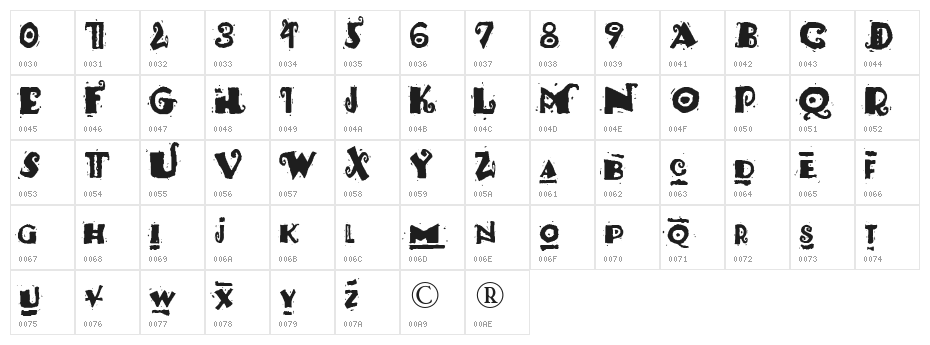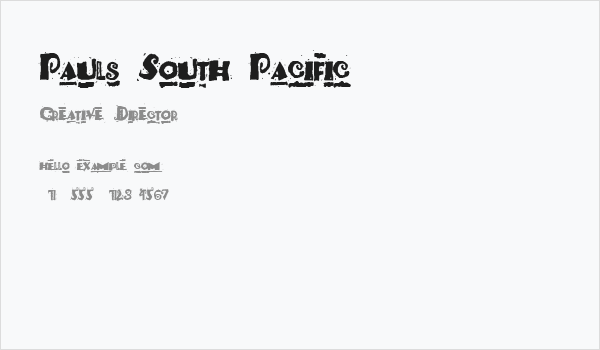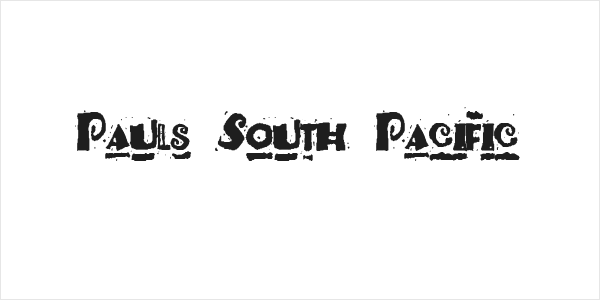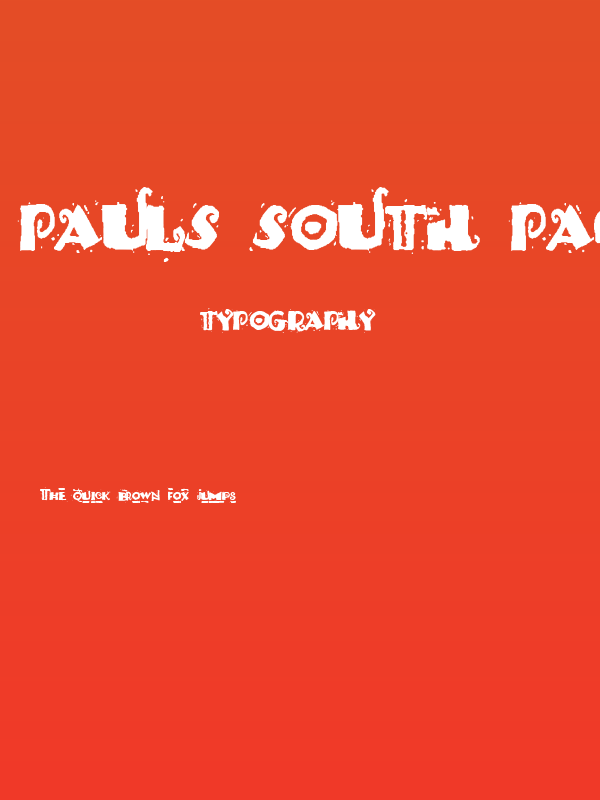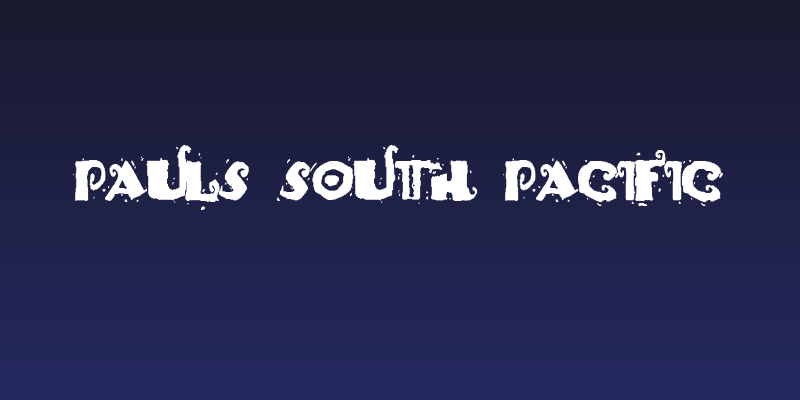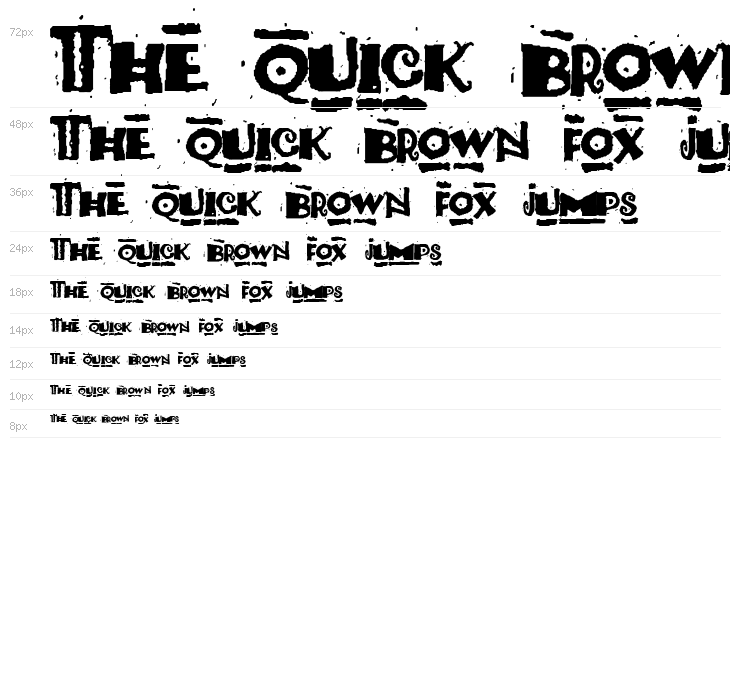
Pauls South Pacific Font
Pauls South Pacific Description
This font features a bold and decorative style with a strong, artistic flair. The characters are embellished with unique, swirling elements that give it a handcrafted appearance. The uppercase letters are particularly striking, with exaggerated serifs and intricate details that make each letter stand out. The lowercase letters maintain the same decorative style, ensuring consistency throughout the typeface. The numbers are equally bold and artistic, with a playful yet sophisticated design. This font's distinctive style makes it ideal for projects that require a touch of creativity and uniqueness.
| Use Case | Headlines, Logos, Artistic projects |
| Proposed Projects | Ideal for creative projects such as posters, album covers, branding, and artistic invitations. |